Awasome Tiny Fonts References. ₛₘₐₗₗ 𝒻ₒₙₜₛ 𝗦𝗺𝗮𝗹𝗹 𝗳𝗼𝗻𝘁𝘀 𝔡𝔦𝔰𝔠𝔬𝔯𝔡 𝔰𝔪𝔞𝔩𝔩 𝔱𝔢𝔵𝔱 why can you use a small text generator? Try creating fun crafts and gifts for friends and family using.
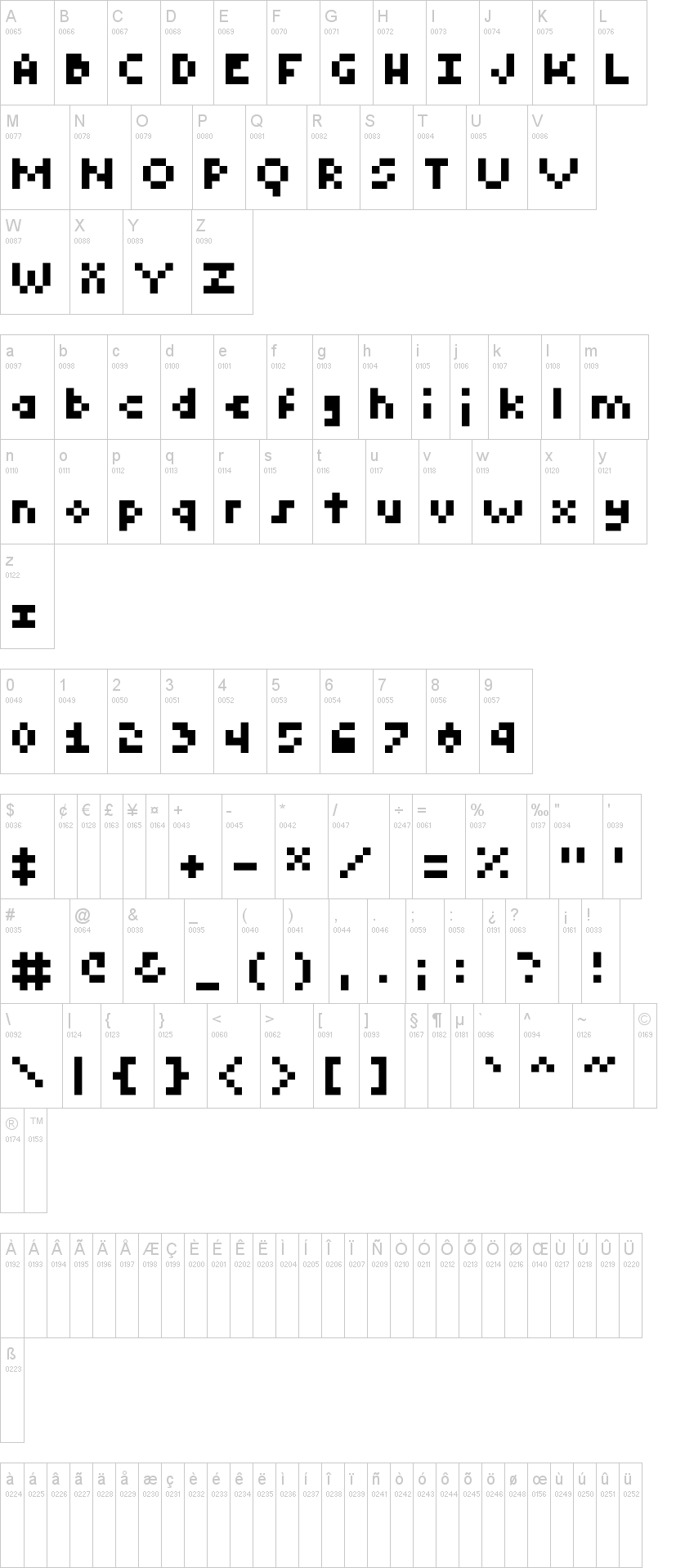
Some Interesting Facts About Fonts Tiny Text Is Used In Tumblr, Twitter And Facebook.
There Are Plenty Of Good Choices, But Most Of Them All Feature The “Sans Serif” Style (Which.
Cute Fonts Are Used On Many Platforms.